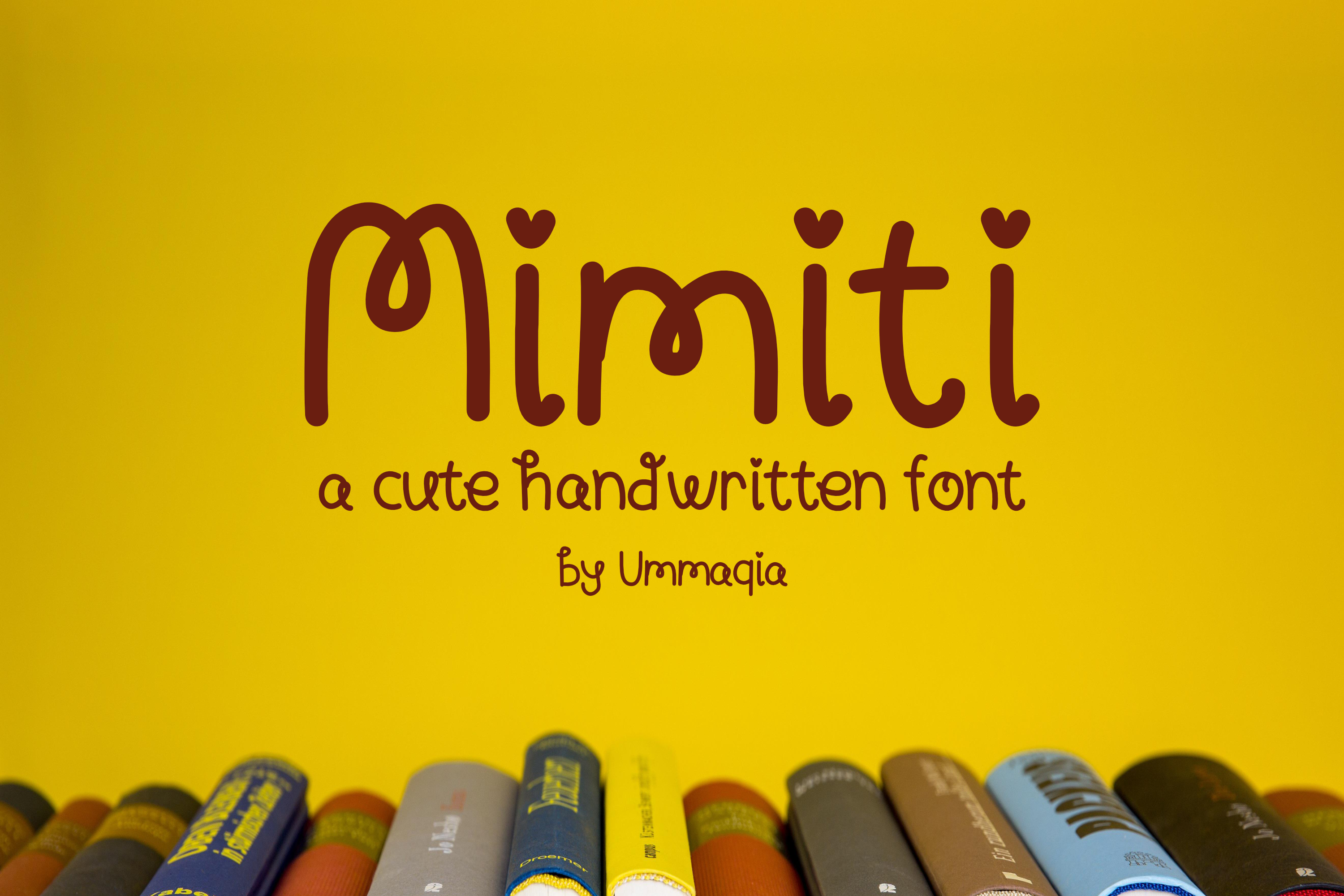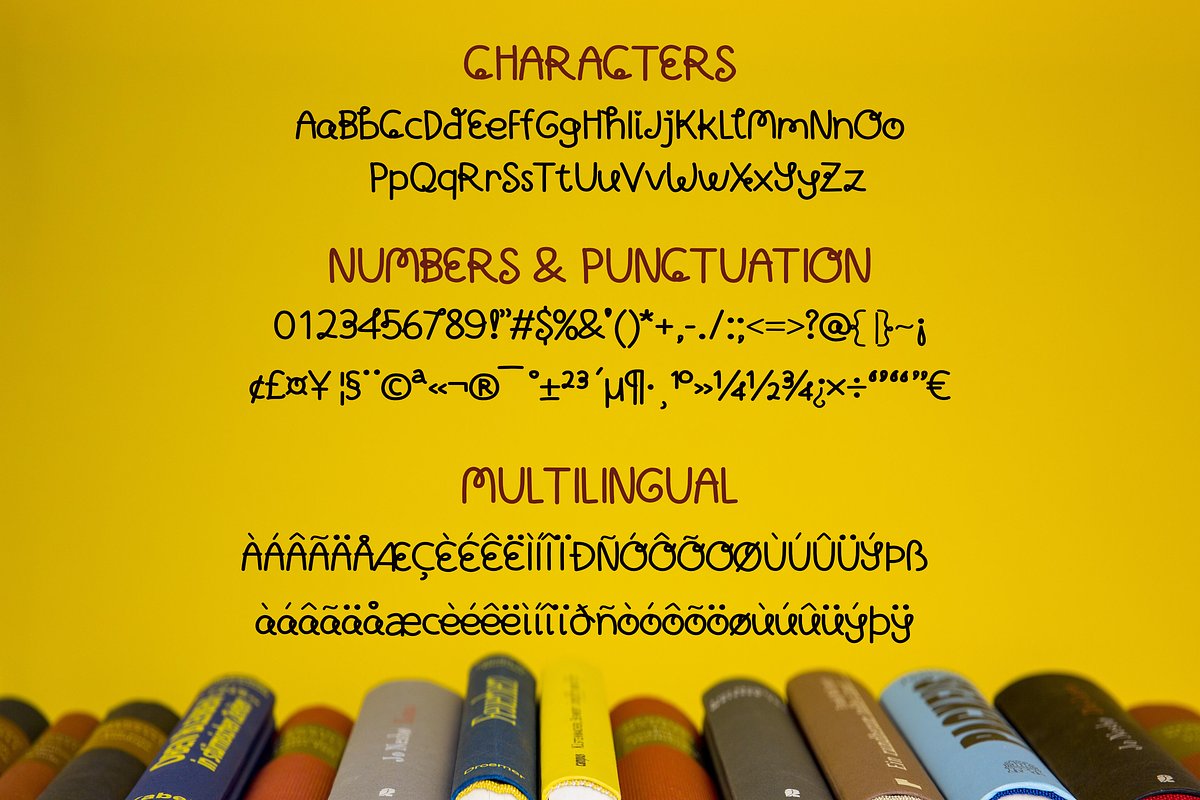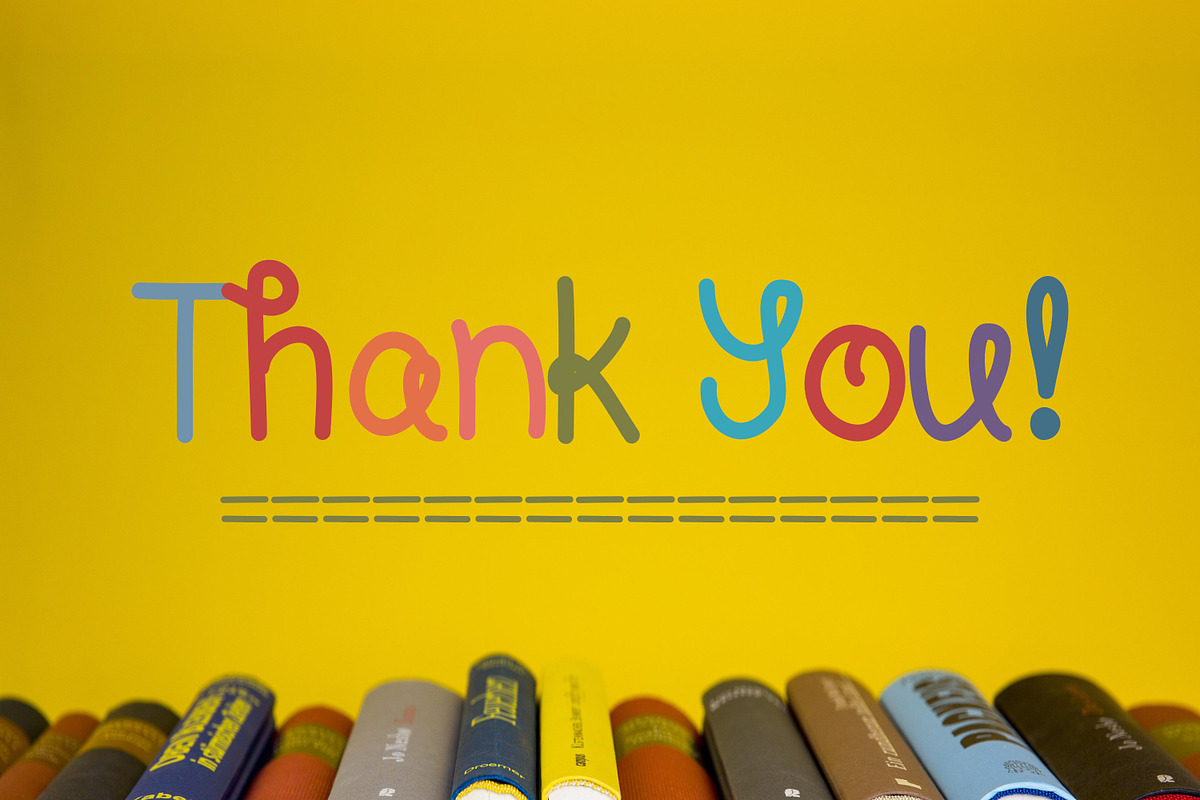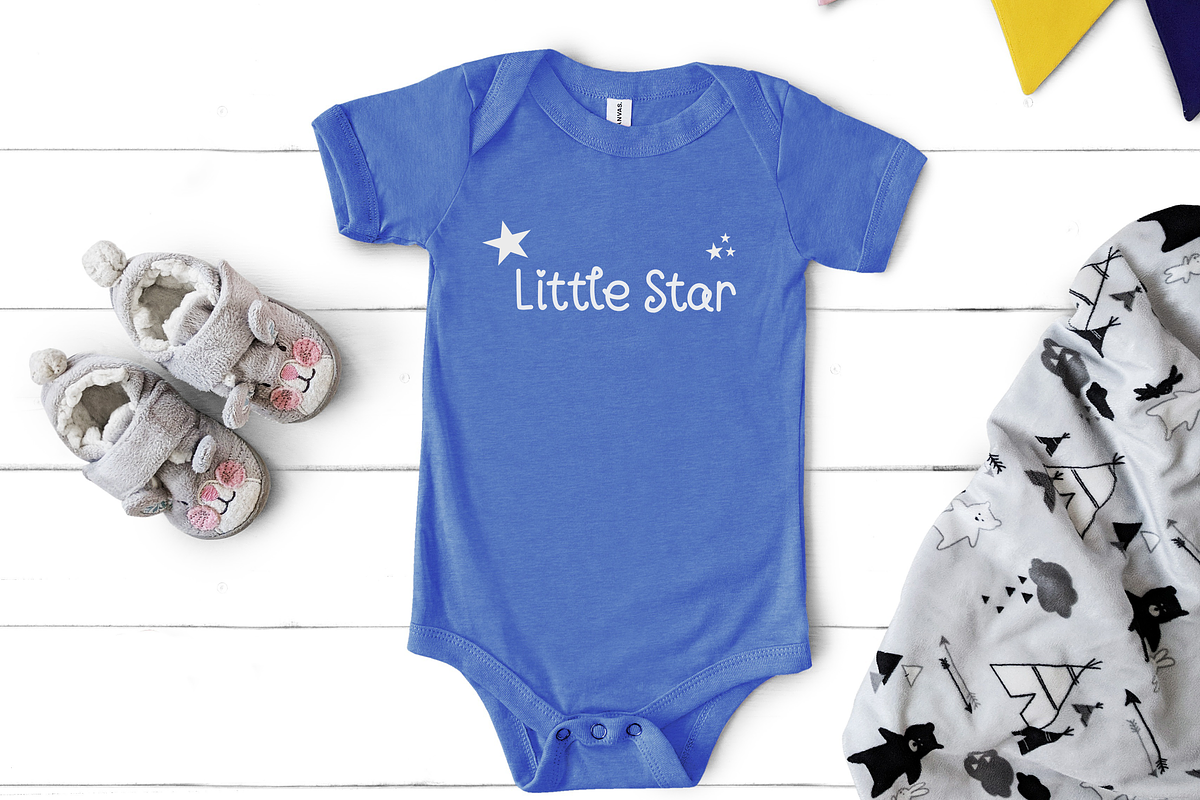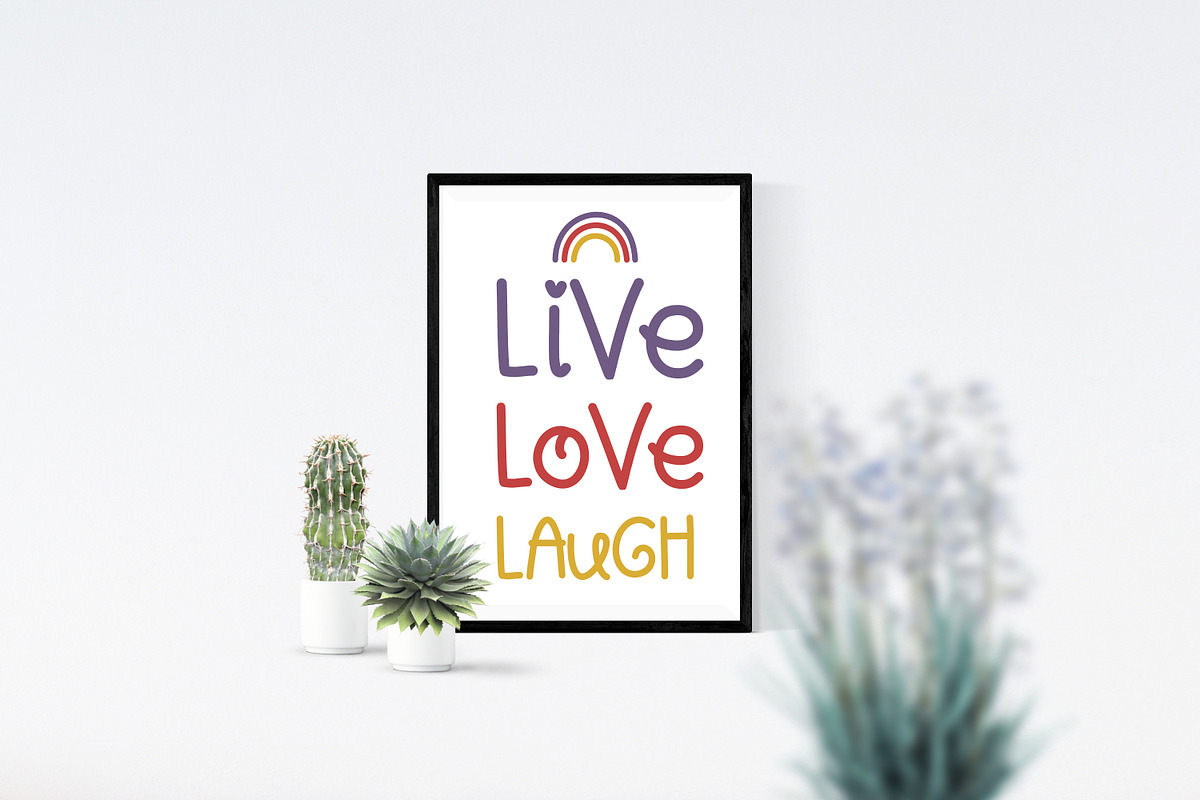
Mimiti Font
Mimiti is a cute handwritting font. Cute and fun, this font is ideal for cards, children product, or any other design that might need a fun and cute touch!